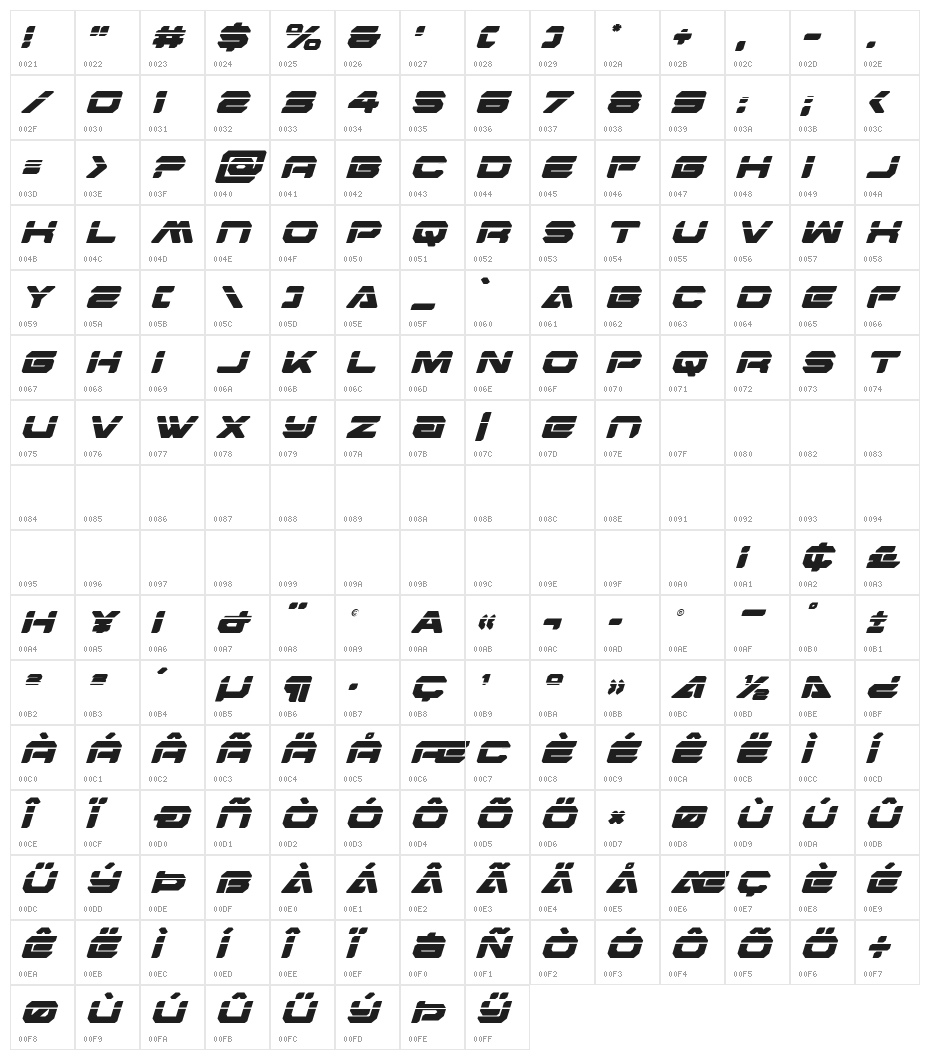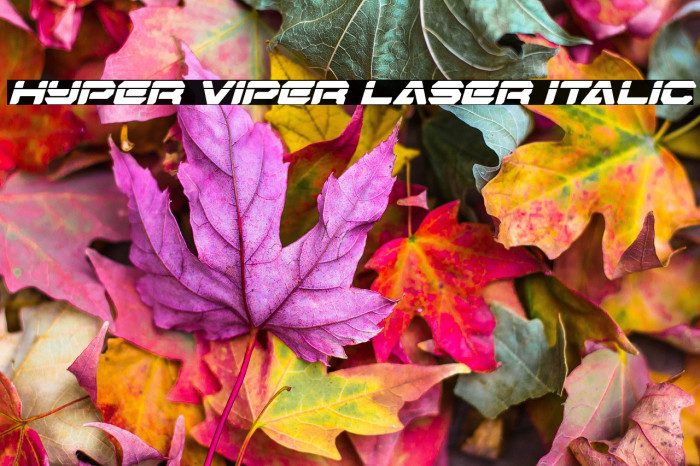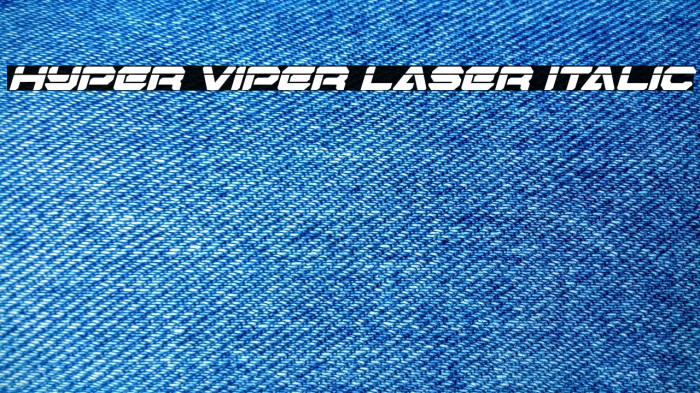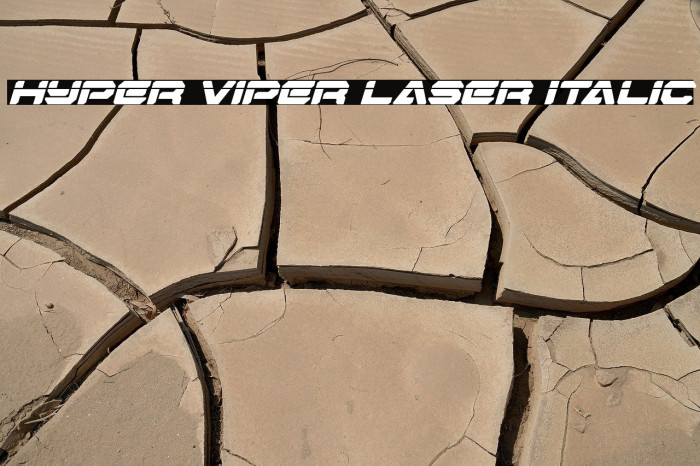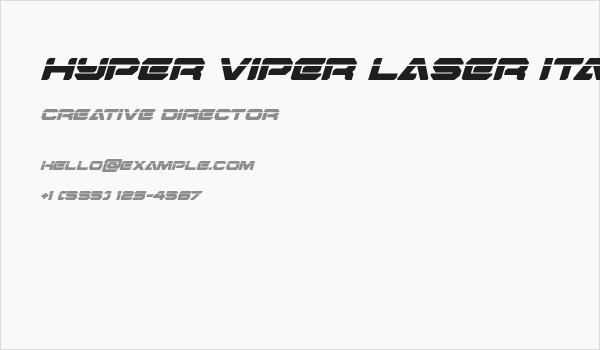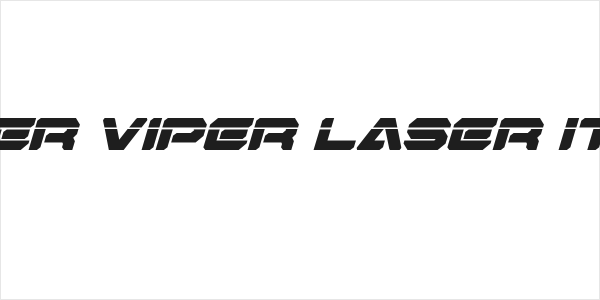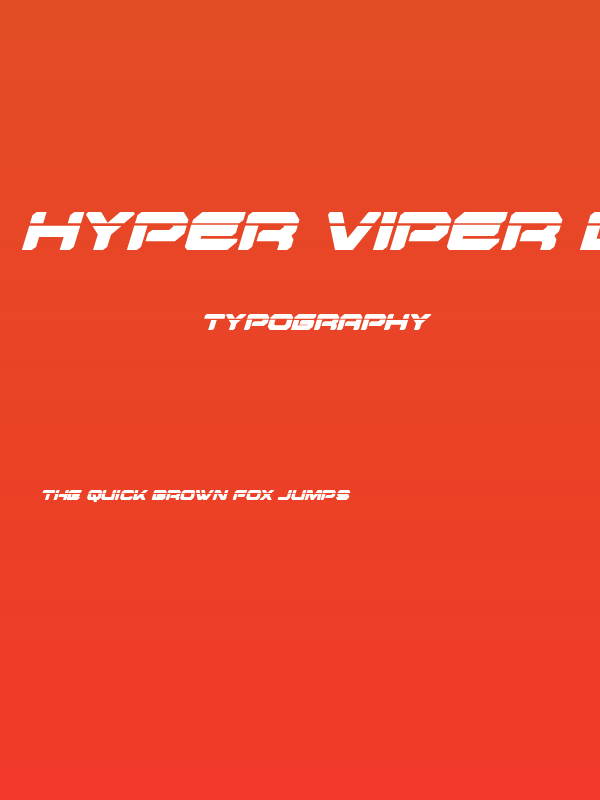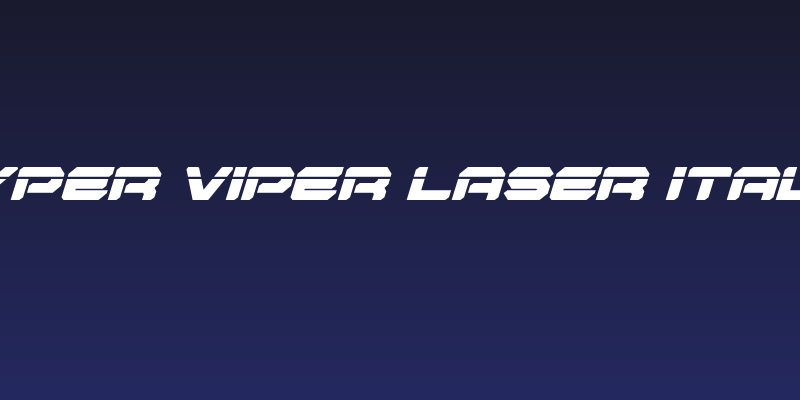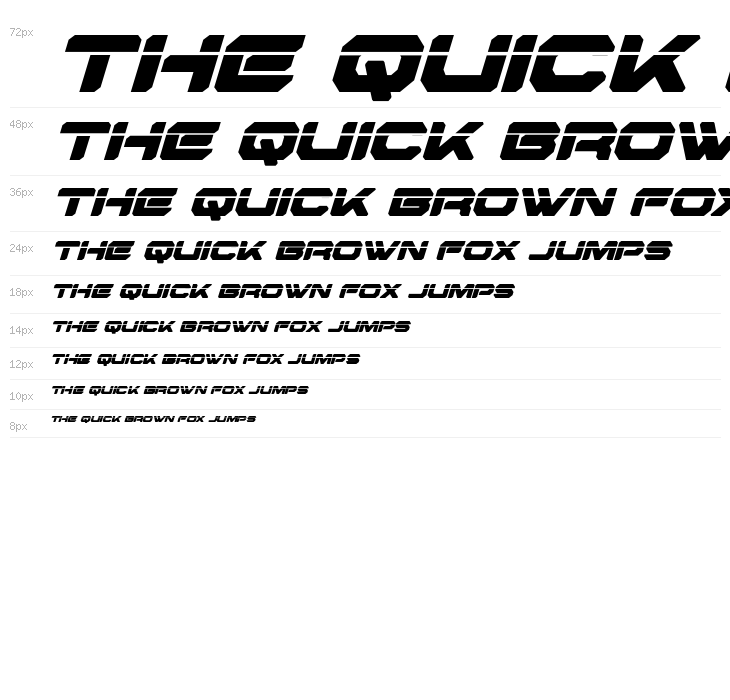
Hyper Viper Laser Italic Font
Hyper Viper Laser Italic Description
This font features a futuristic and dynamic design, characterized by sharp angles and a slanted, italicized form that gives it a sense of motion and speed. The bold, geometric shapes of each character are reminiscent of digital or sci-fi themes, making it ideal for projects that require a modern and edgy aesthetic. The uppercase and lowercase letters maintain a consistent style, with a uniform thickness that enhances readability while still offering a distinctive look. The numbers and special characters are designed to match the overall theme, ensuring a cohesive appearance across all text elements.
| Proposed Projects | Ideal for sci-fi movie posters, video game titles, tech branding, and futuristic-themed designs. |